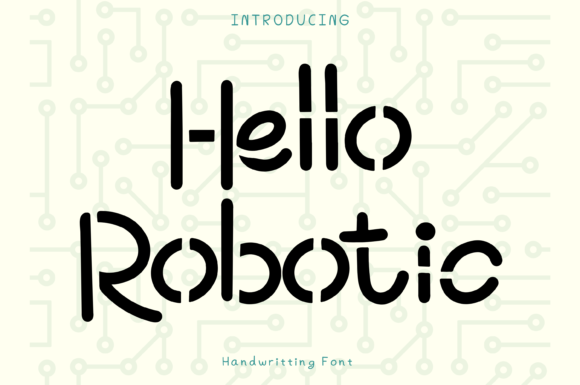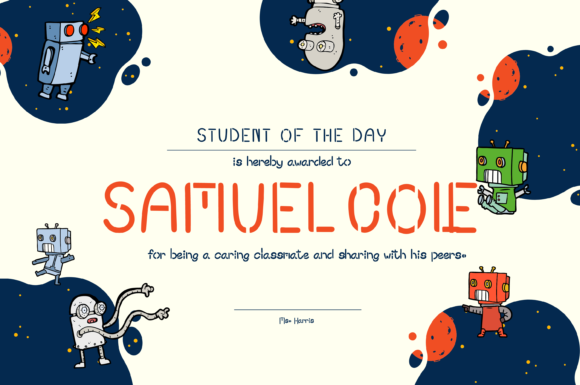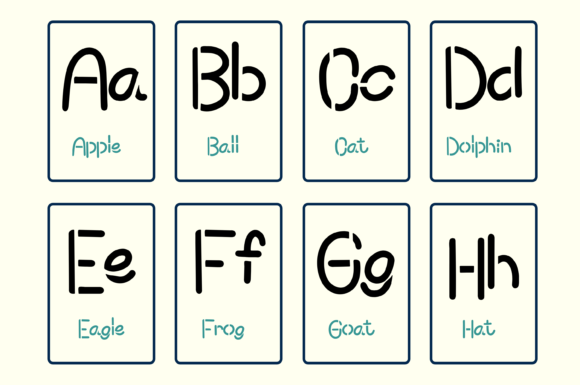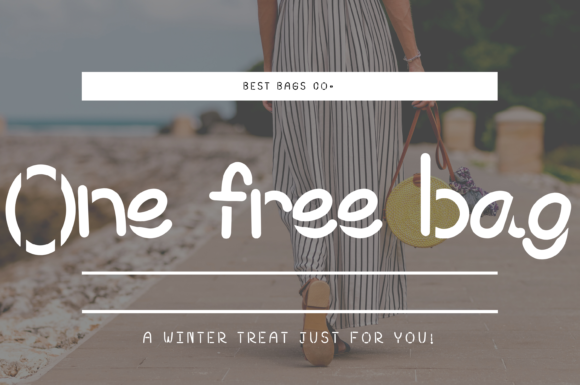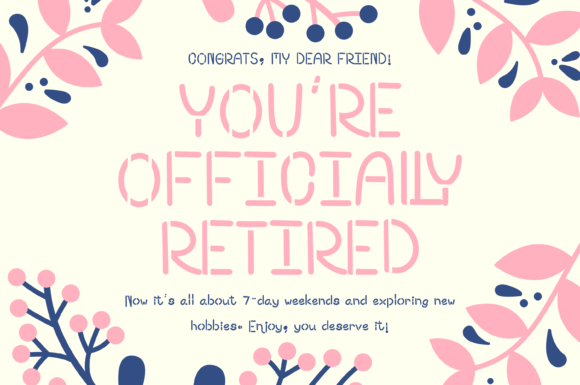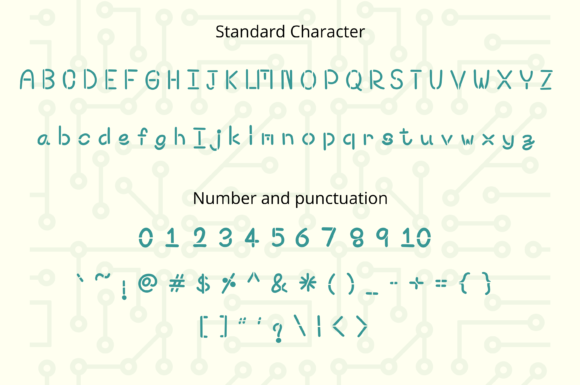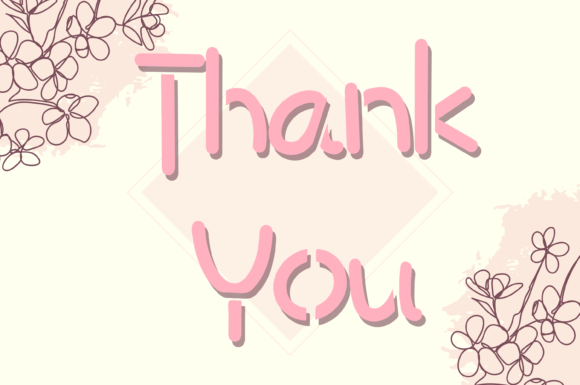
Hello Robotic Font
About Hello Robotic Font
“Hello Robotic” is a whimsical and clean handwritten font that adds a touch of playfulness to your designs. Its unique style makes it a versatile choice for a wide variety of projects. Incorporating this font into your creative ideas can truly make them shine and catch the eye.
The font’s whimsical and clean letterforms bring a sense of fun and lightheartedness to your designs. Whether you’re working on branding, packaging, invitations, posters, or digital content, “Hello Robotic” infuses your creations with a charming and distinctive quality.
The font’s adaptability allows it to effortlessly complement a range of design concepts. Its whimsical nature can add a dash of creativity to both casual and more formal projects. By using “Hello Robotic” in your designs, you introduce an element of uniqueness and visual appeal that stands out.
In essence, “Hello Robotic” is not just a font—it’s a creative tool that enhances your ideas with a touch of whimsy. Its playful characters and clean appearance position it as a valuable asset for designers seeking to create captivating and visually distinct designs that leave a lasting impression.